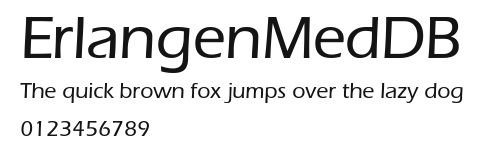
ErlangenMedDB Preview
• Font Name: ErlangenMedDB
• Font ID: Altsys Fontographer 4.0.3 ErlangenMedDB Bold
• Full Font Name: ErlangenMedDB Bold
• PostScript Name: ErlangenMedDBBold
About ErlangenMedDB.ttf
ErlangenMedDB.ttf is a modern, elegant sans-serif font designed for ultimate readability and visual harmony. Perfect for branding, headlines, web design, and print materials.